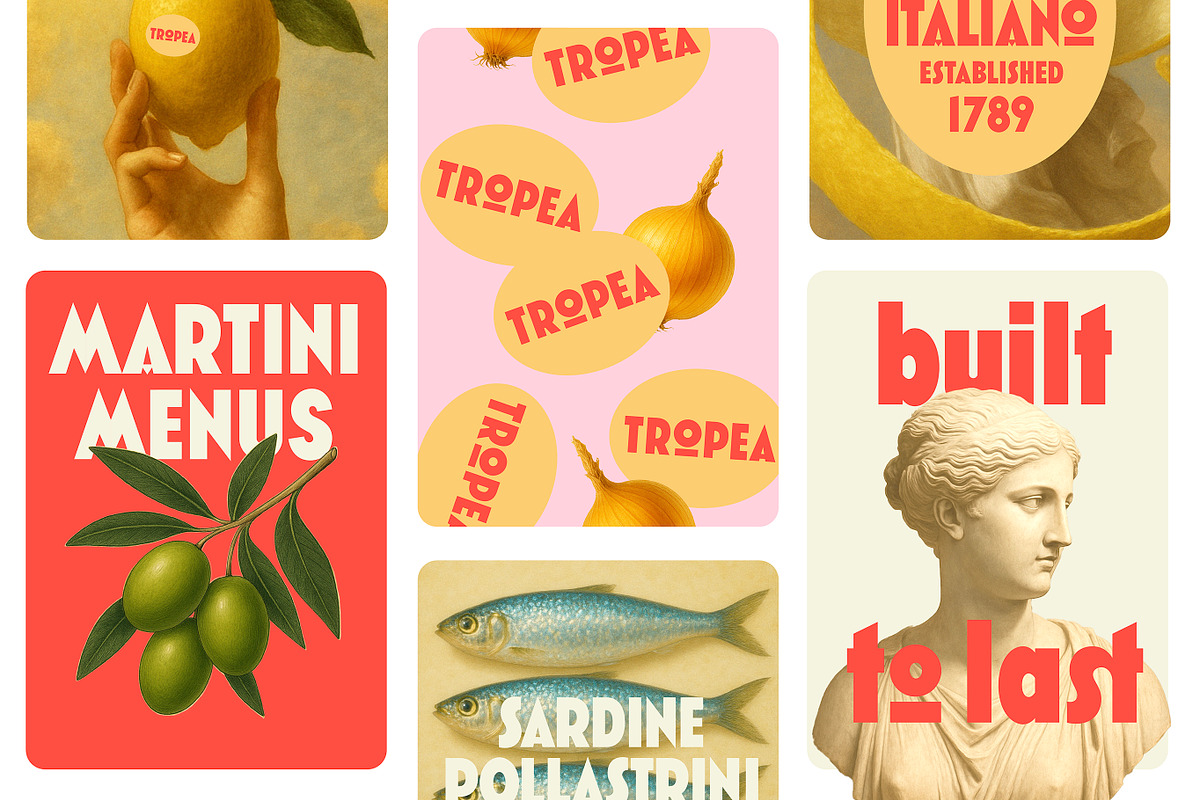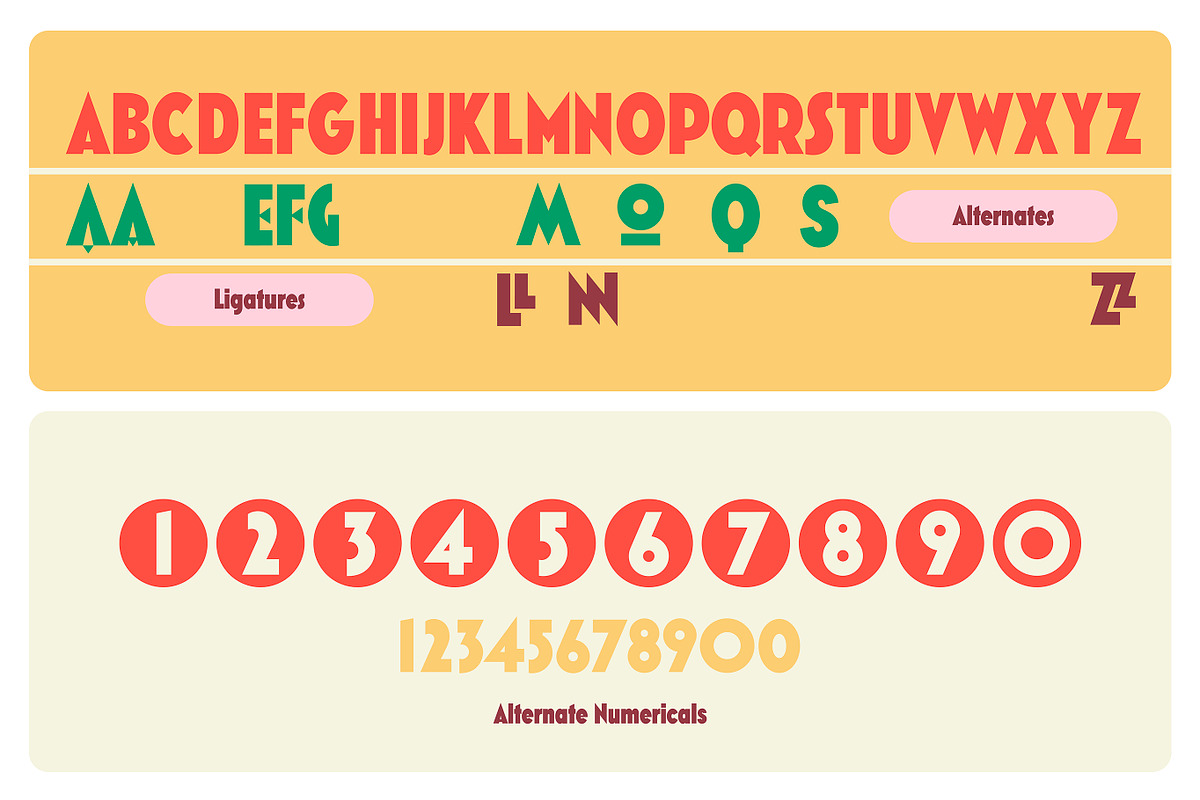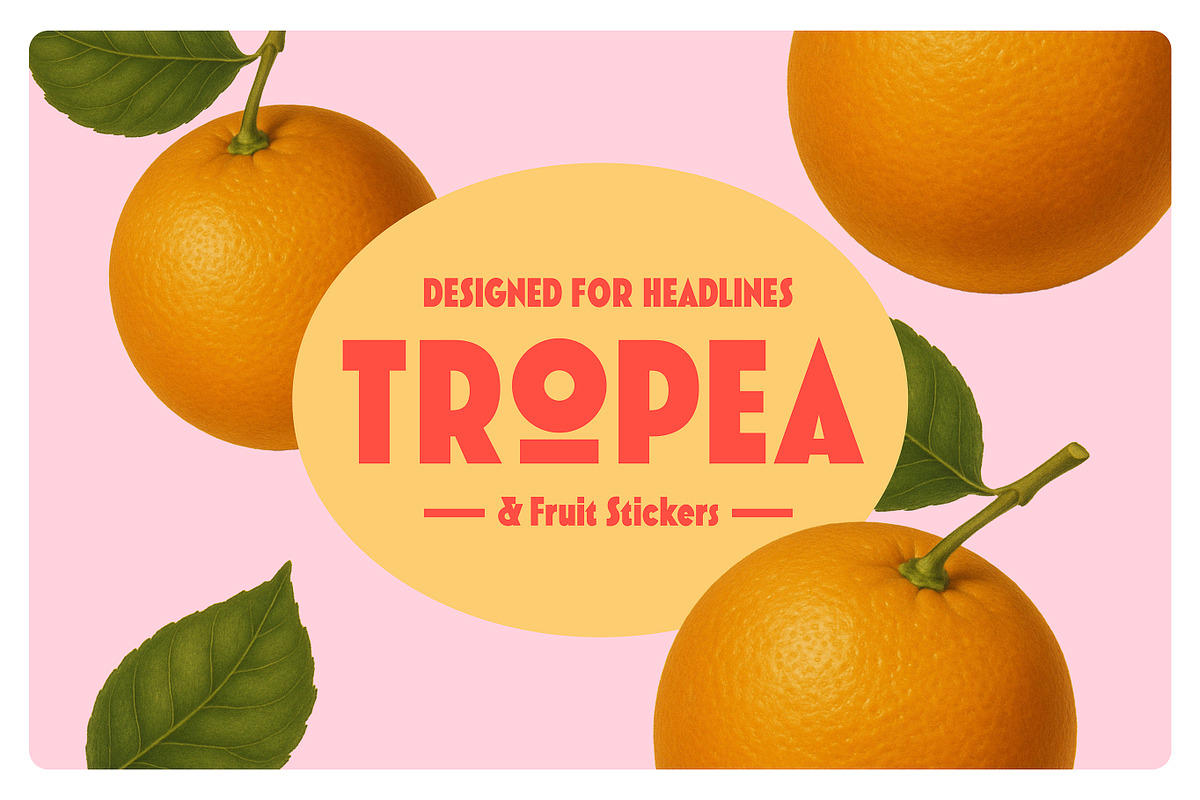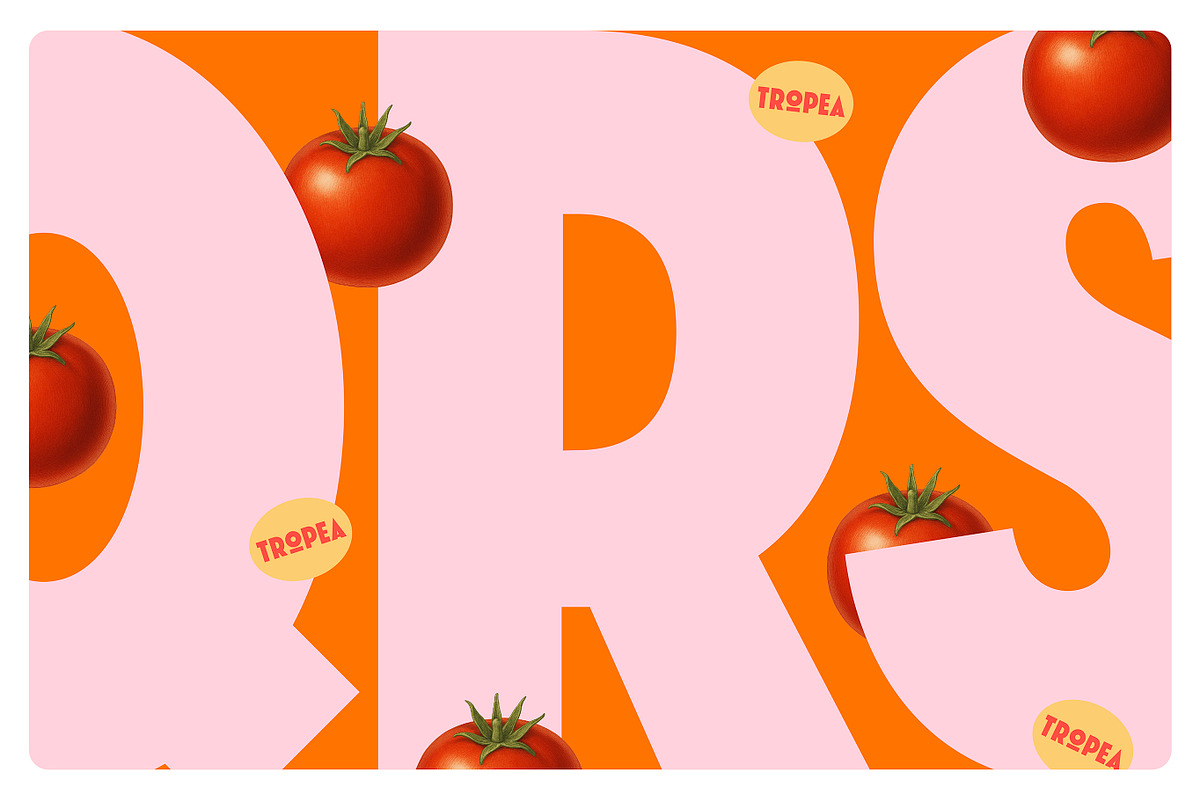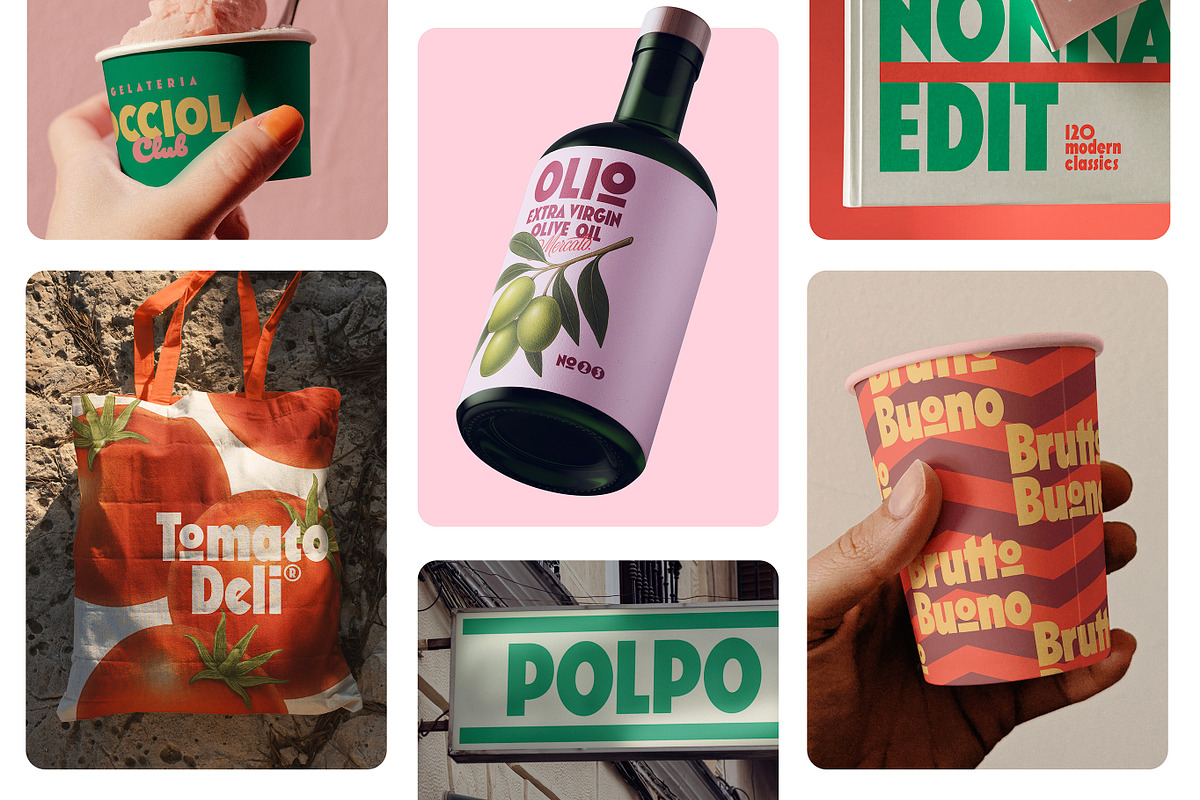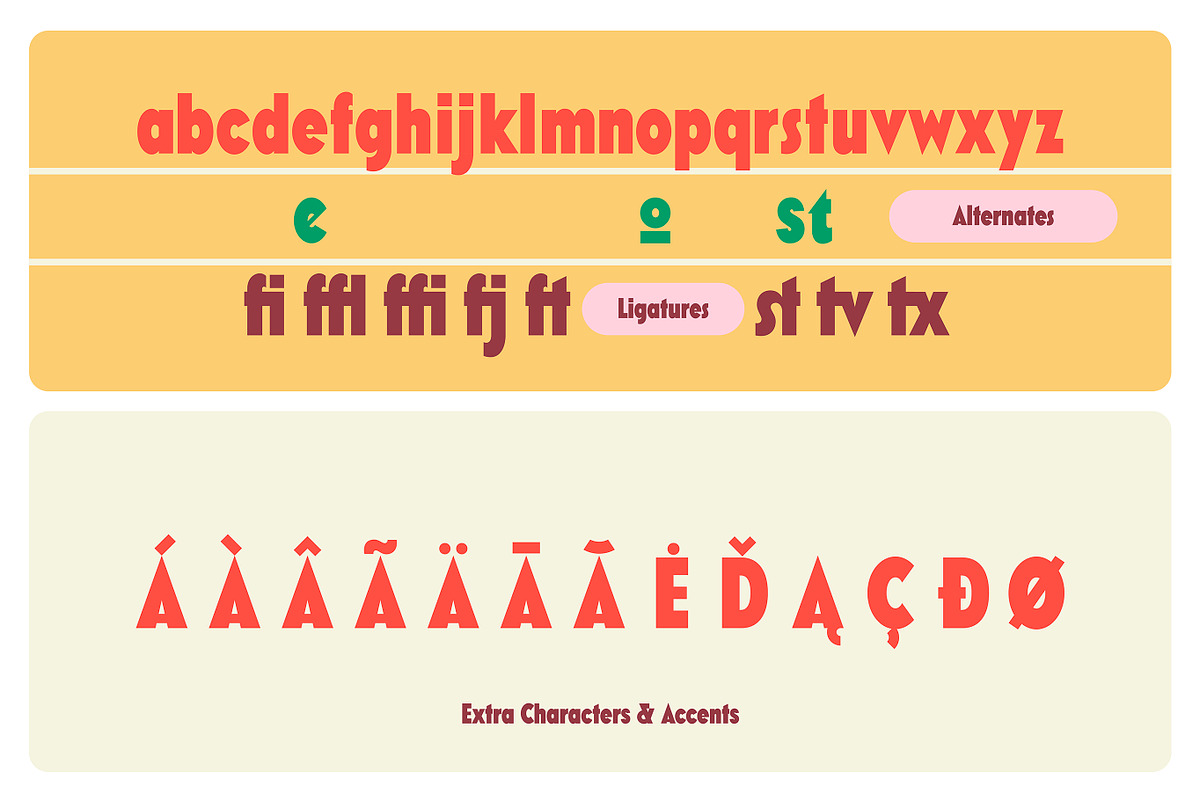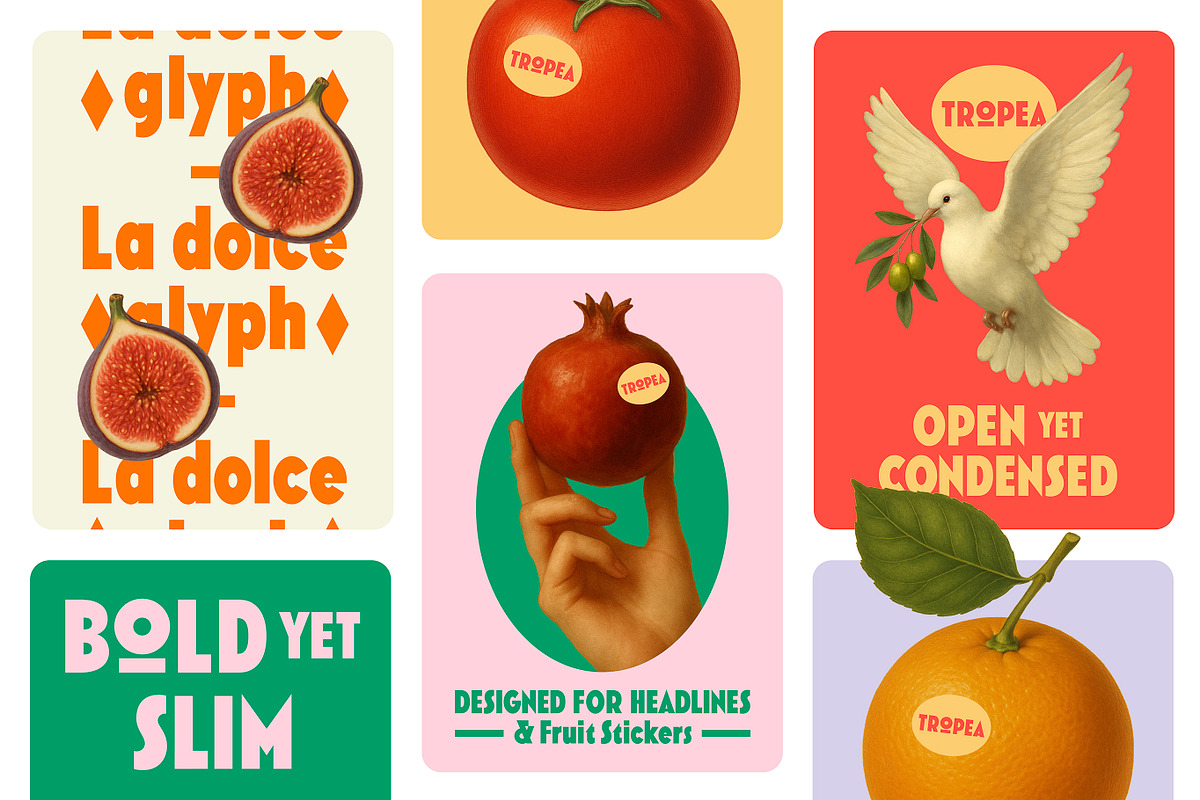
Tropea
Say hello to Tropea — a bold sans with big holiday energy.
Chunky, confident, and impossible to ignore, Tropea is a sans serif that brings the heat. Inspired by vintage shopfronts, beachside espresso bars, and the kind of signage you spot on holiday and think: “Why don’t they make letters like that anymore?”
It’s loud in the best way — built for standout logos, punchy packaging, sunny headlines, and brands that like a little swagger.
What’s inside: – Uppercase + lowercase – Punctuation & multilingual support – A handful of tasty ligatures
Good with: ☼ Gelato cups ☼ Olive oil tins ☼ Cafe signage ☼ Anything that wants to feel full of flavour
Use it where you want your words to shout — but with charm.